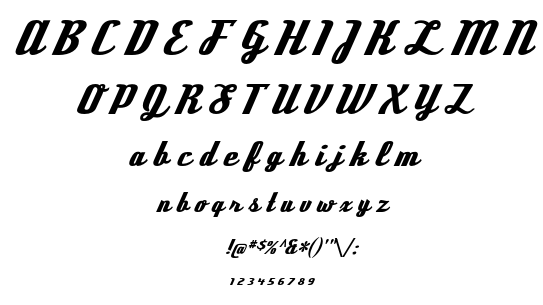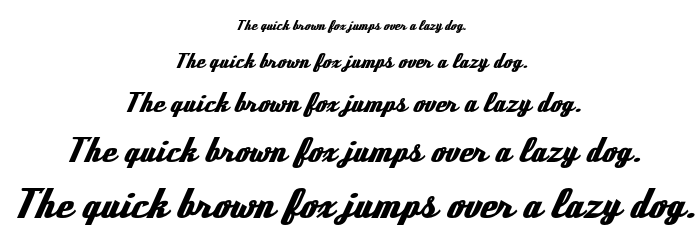
Deftone Stylus is a structured, industrial script from the late 20th Century. It was rebuilt in 2011 and now features custom letter pairs to make words flow. Don’t forget to read the files inside the zip for details. Updated in 2012.